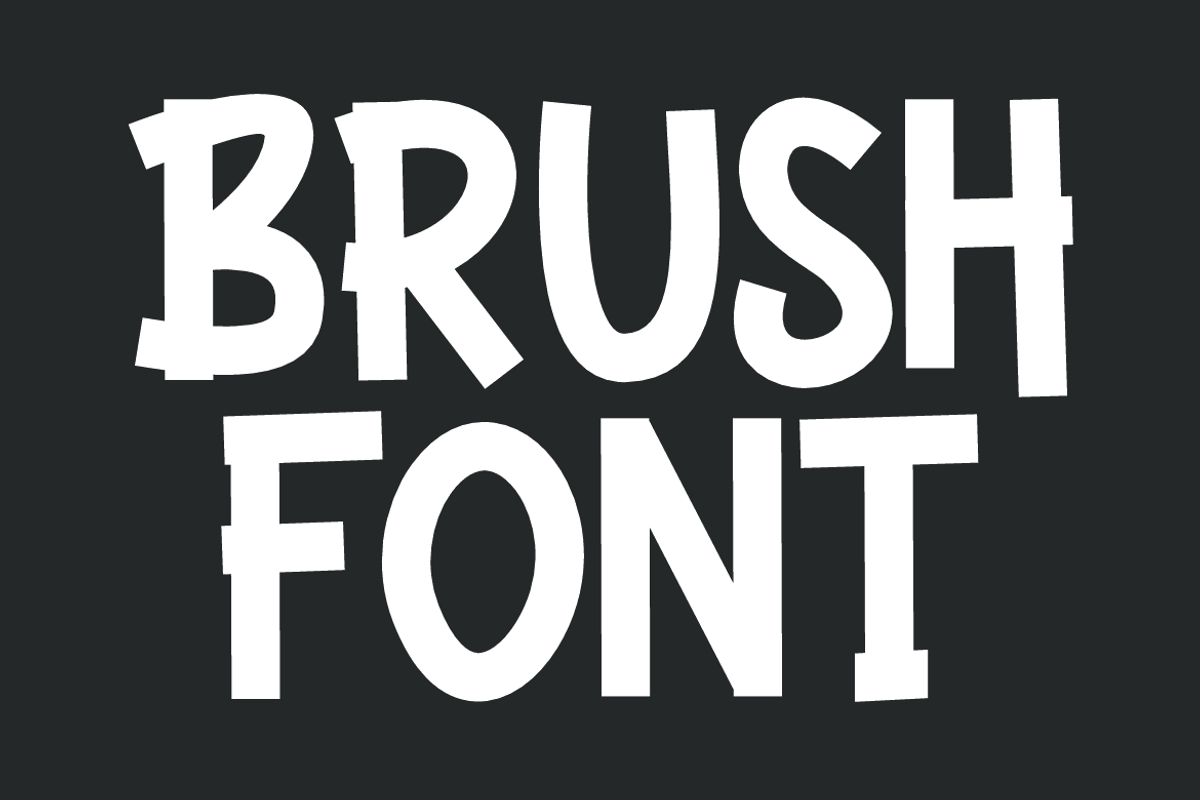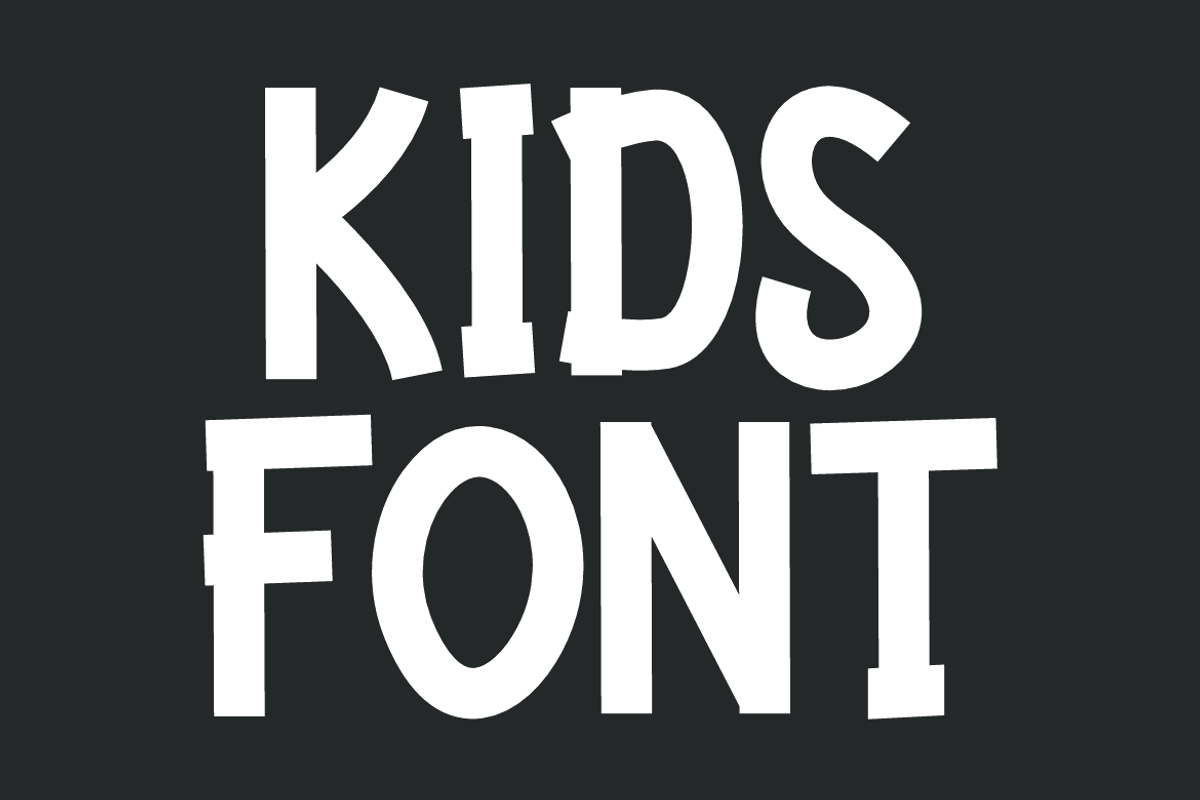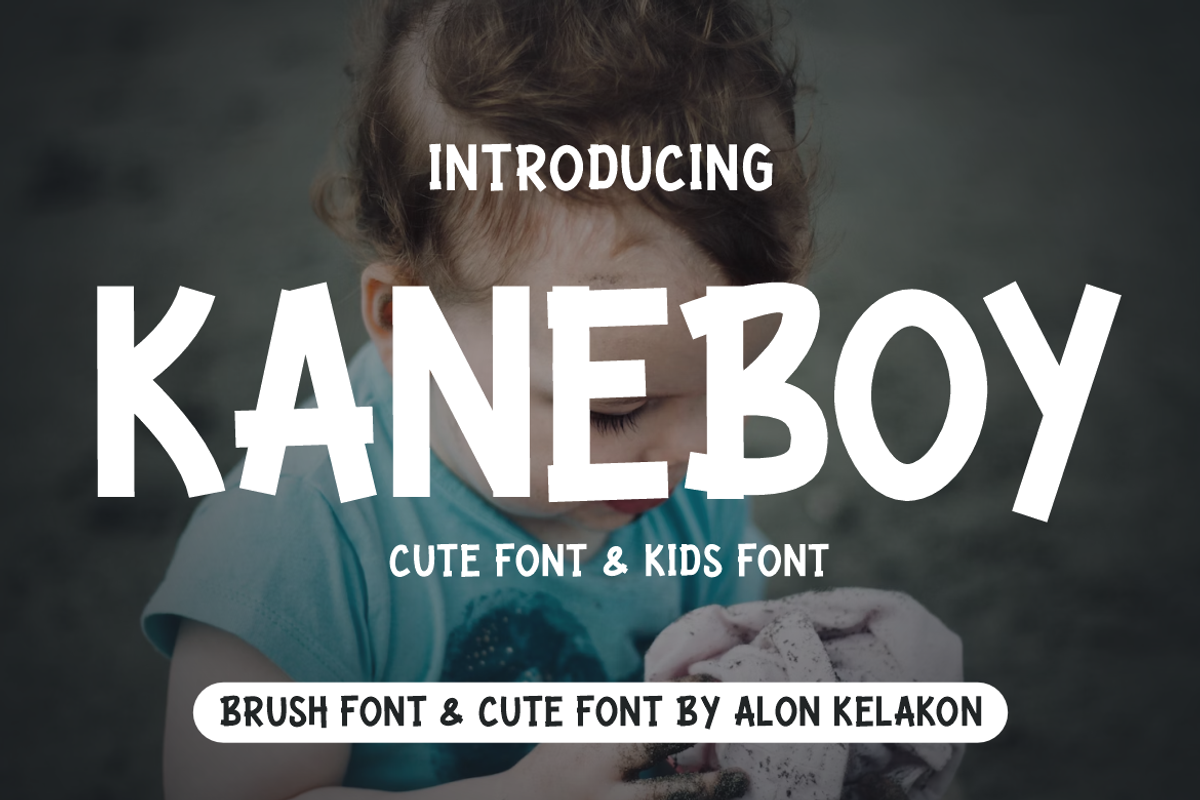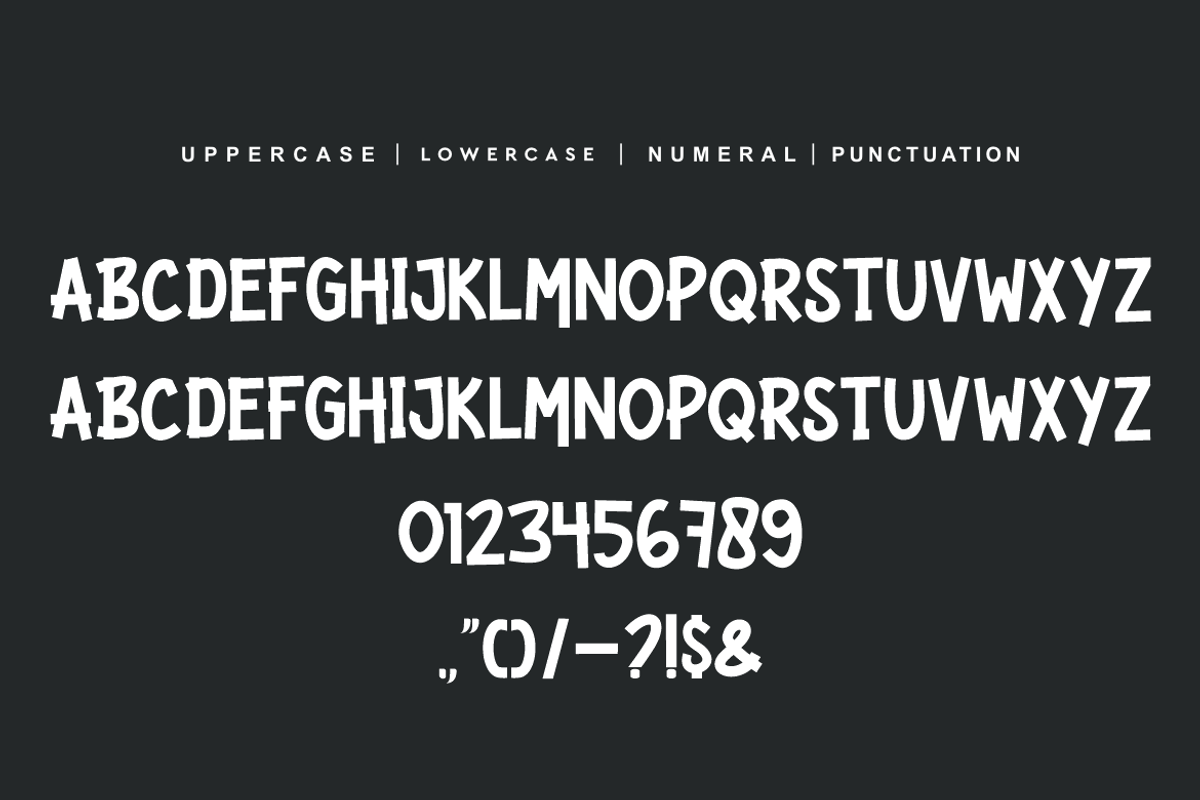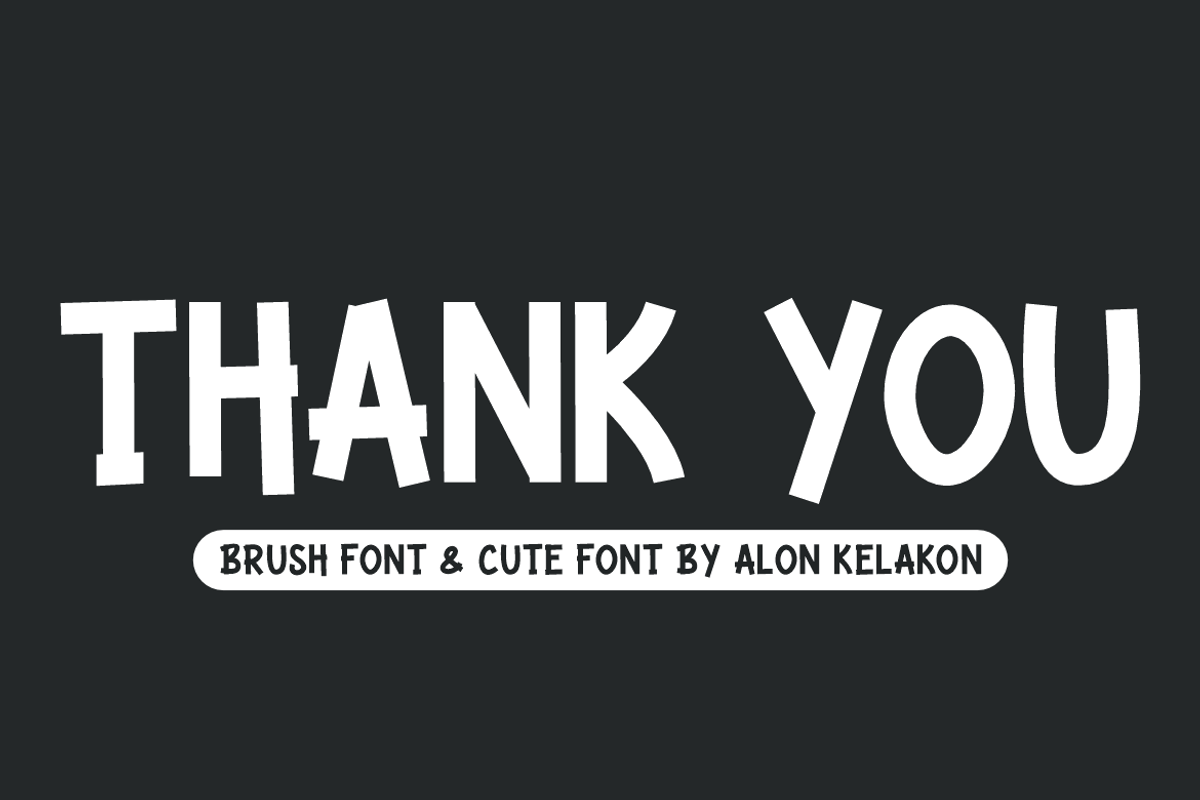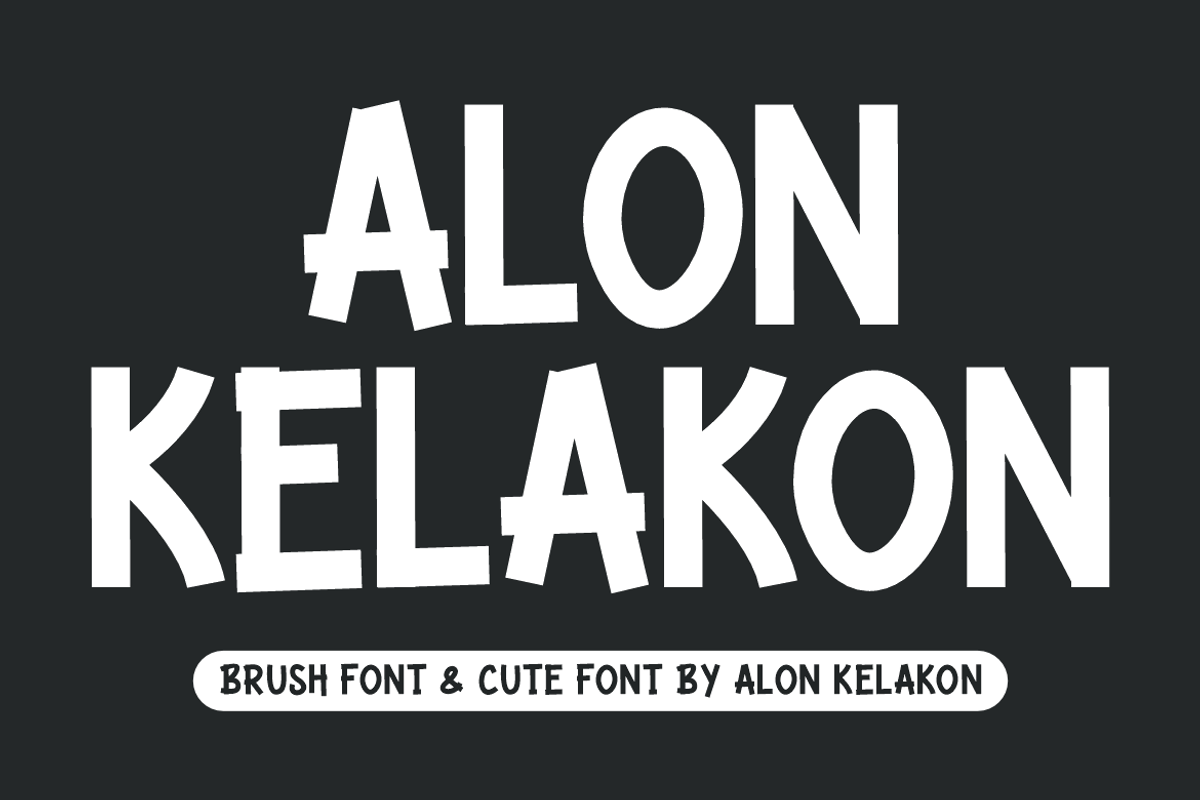
Kaneboy
Kaneboy Font is unique . Ready to use for your design like labeling, movie sceen, poster, movie title, gigs, album covers, logos, and much more.